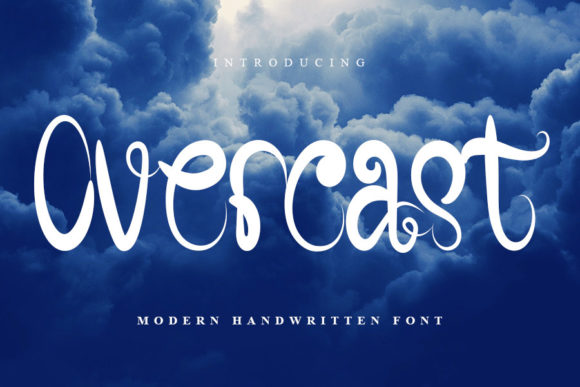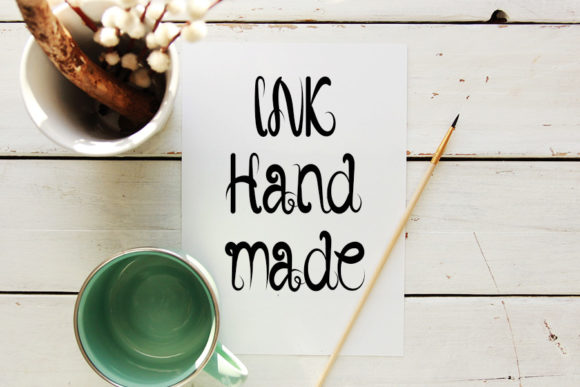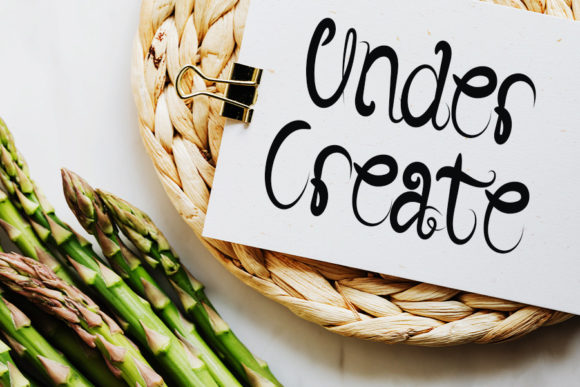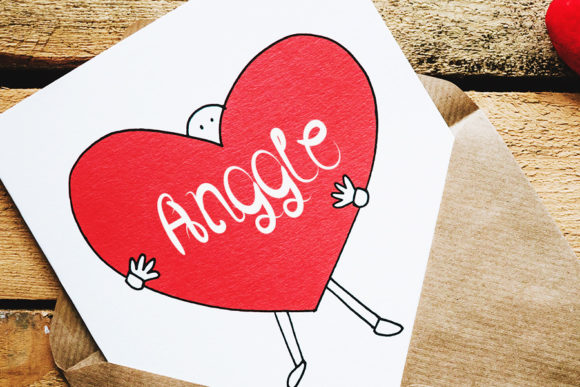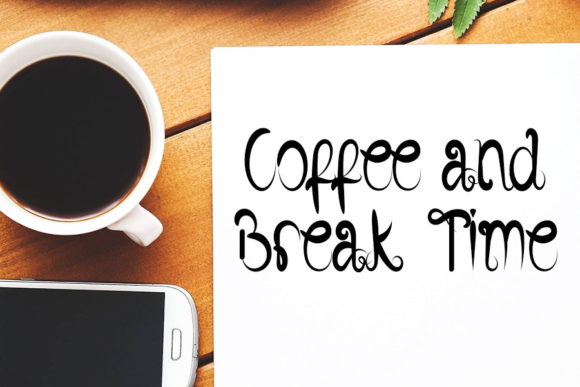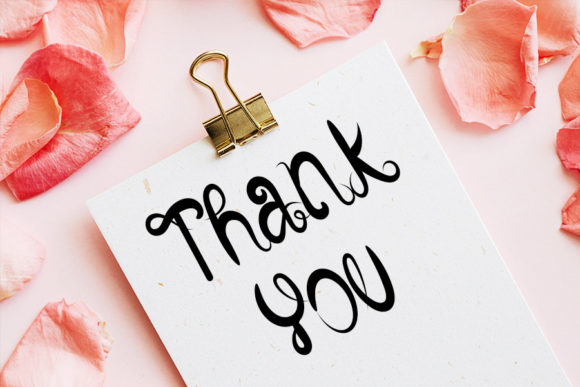
Overcast Font
About Overcast Font
Overcast is a chic, round lettered and clean handwritten font. Its flexibility and neat style will brighten up each of your designs. Have fun with this cool font and explore its endless variations.